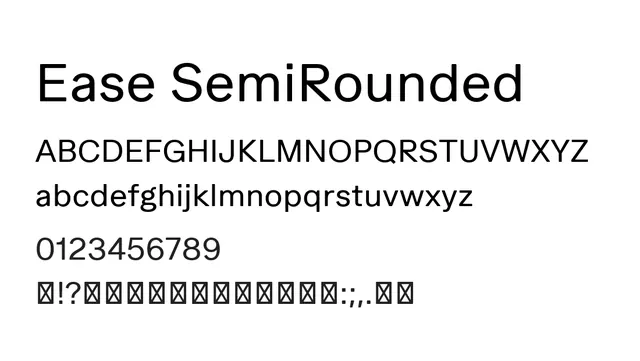
Ease SemiRounded
Ease SemiRounded, modern, balanced
Geometric sans with subtle rounding on terminal endpoints, balancing friendliness with clarity for digital design.
Ideal for UI design and body text in digital products where a slightly softer aesthetic than pure geometric sans is preferred. The semi-rounded nature provides warmth without sacrificing readability.
Pairs effectively with Source Code Pro for technical contexts, or with Poppins for a cohesive contemporary design system.